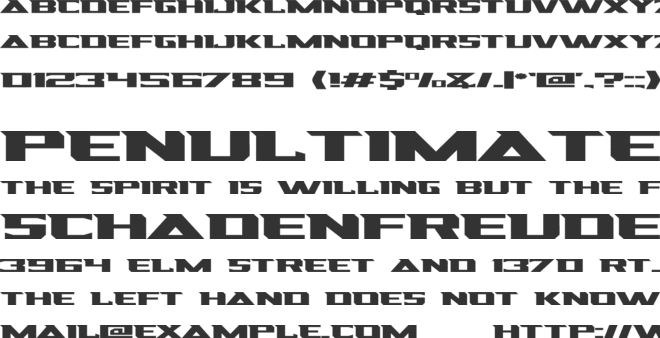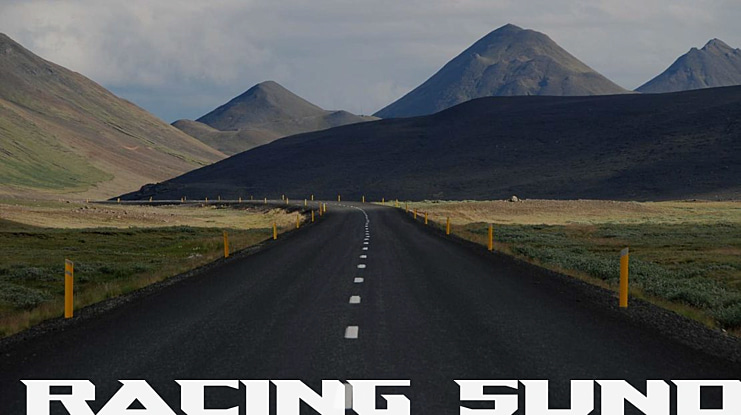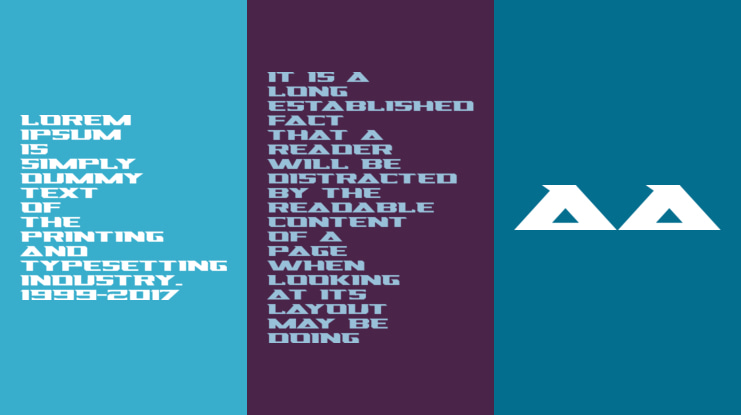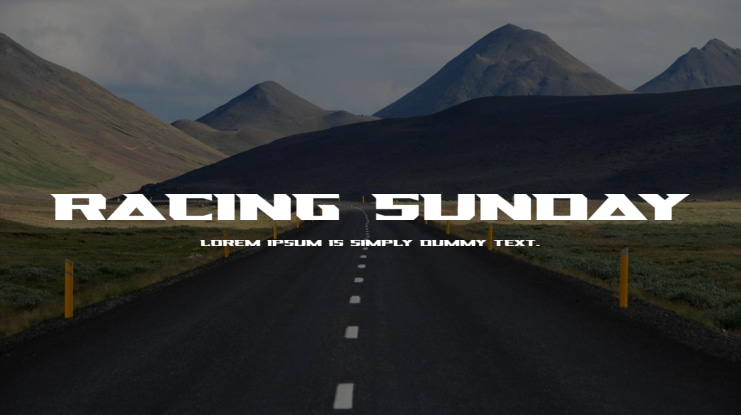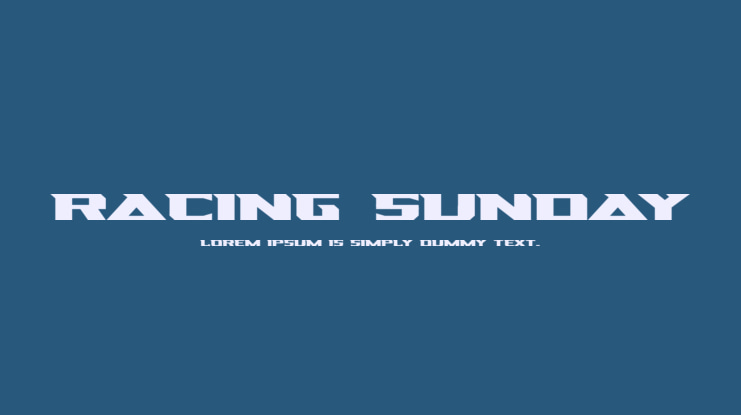
Racing Sunday Font
Racing Sunday is a cutting-edge display font with a distinctive style that effortlessly injects energy and dynamism into your projects.
Racing Sunday is the perfect choice for automotive magazine covers, racing game covers, logos & branding, product design, labels, and much more.